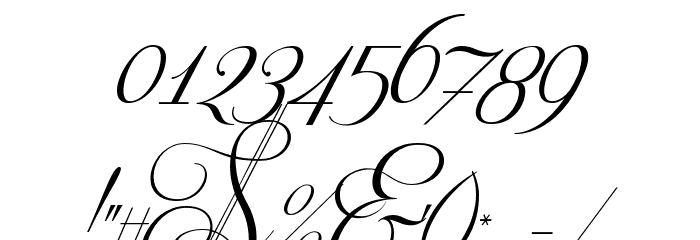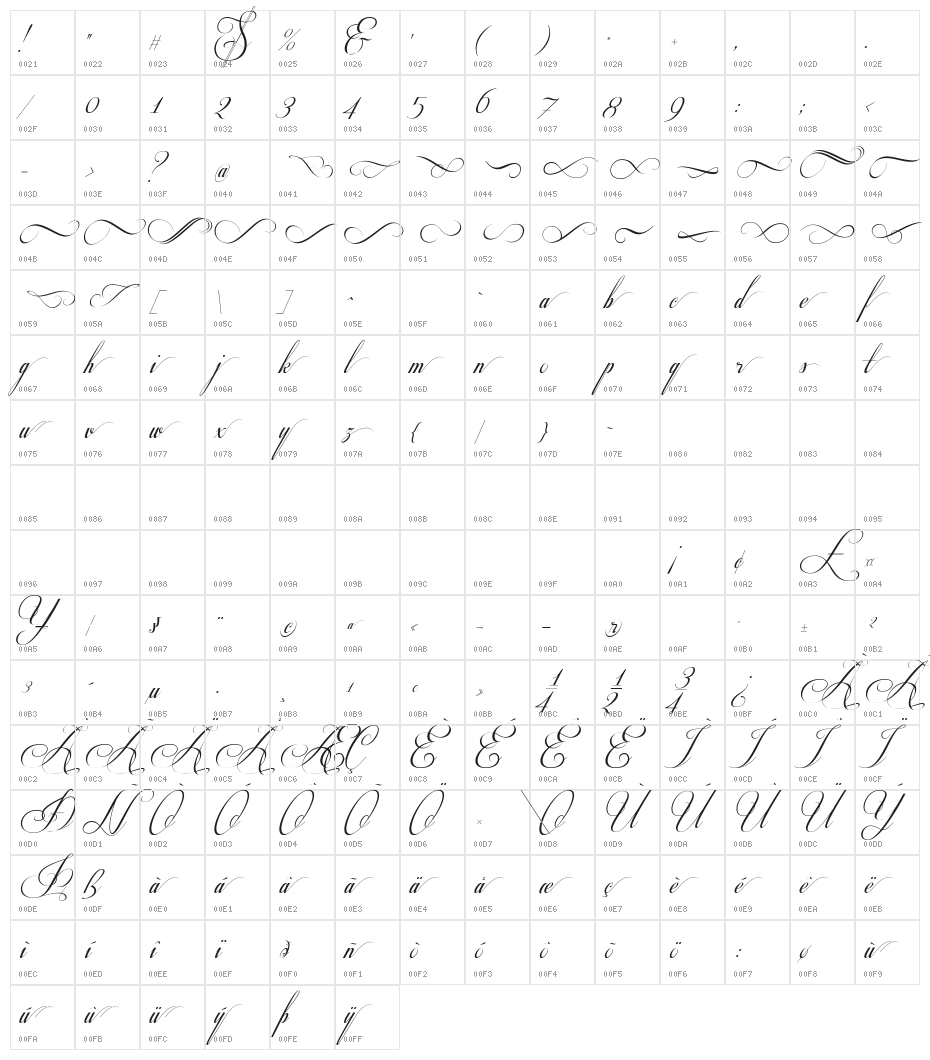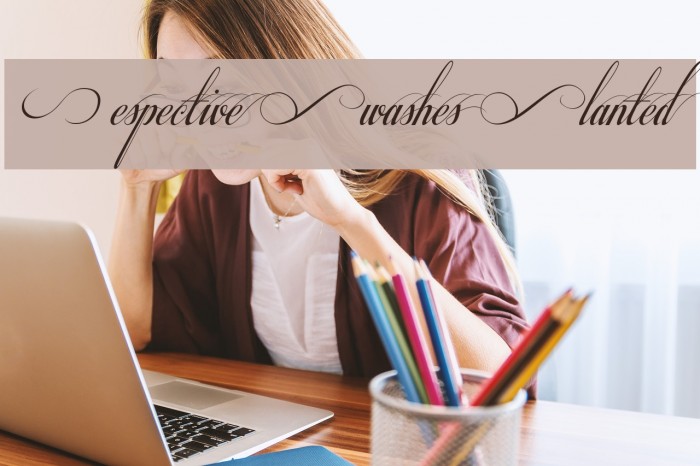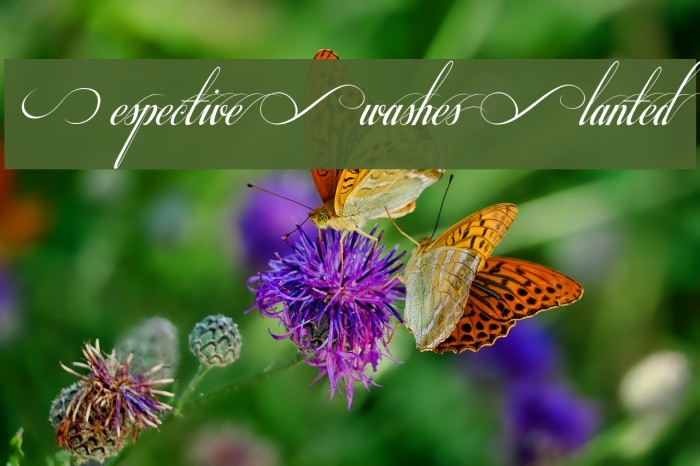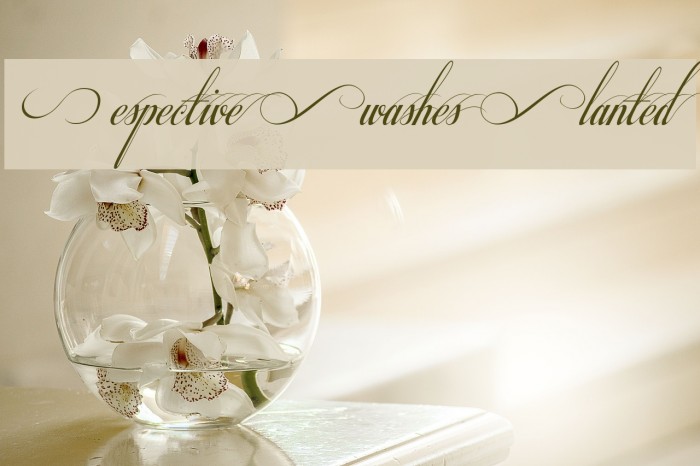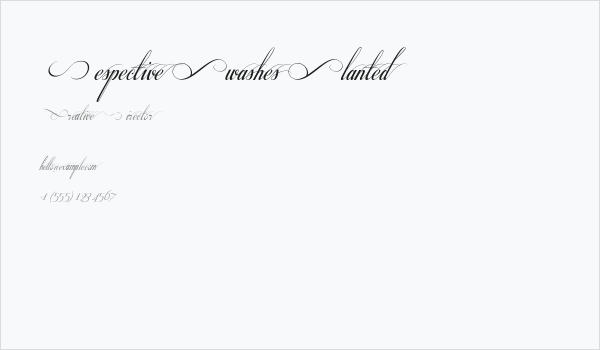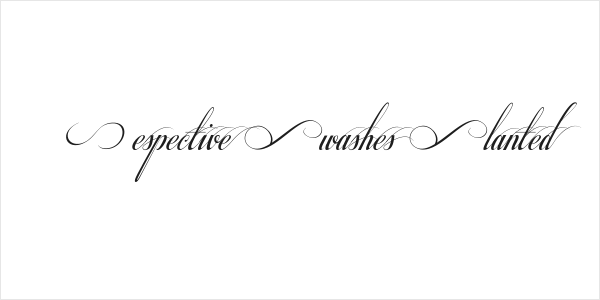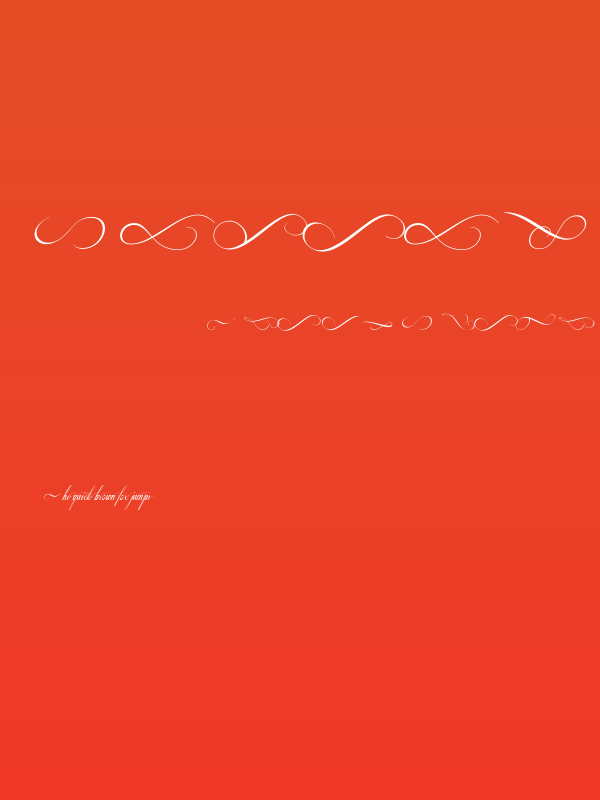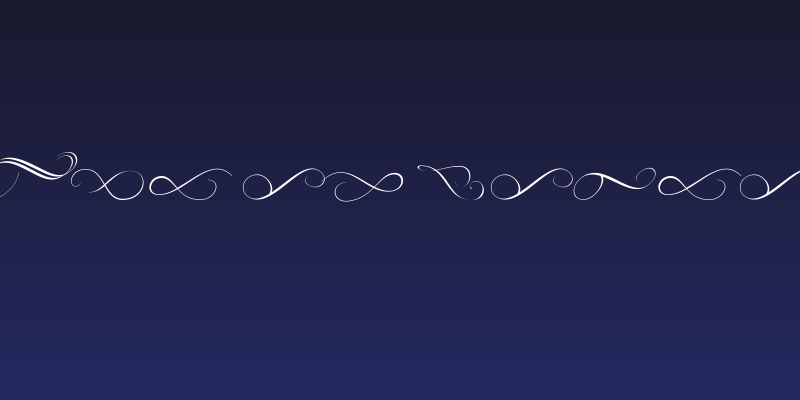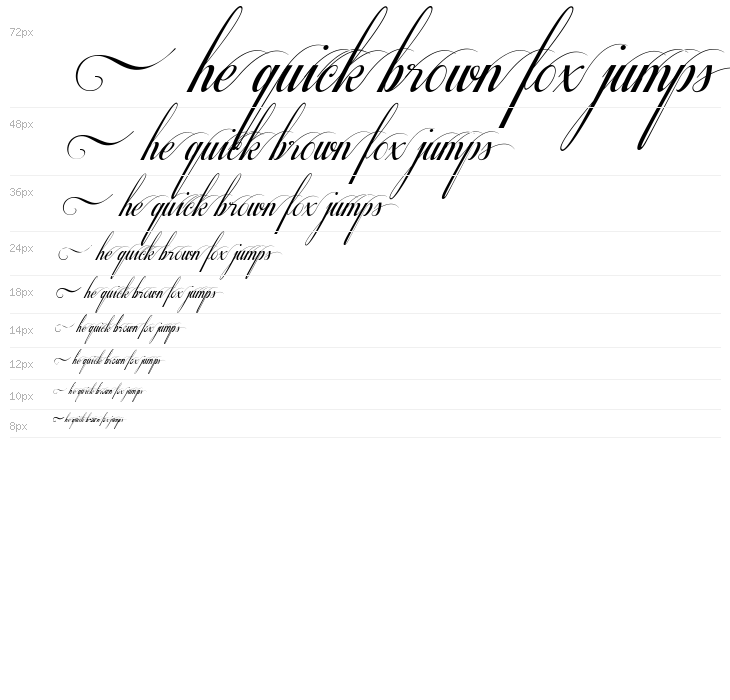
Respective Swashes Slanted Font
This font exhibits an elegant and sophisticated style with its flowing, cursive script. The characters are adorned with intricate swashes and flourishes, giving it a highly decorative appearance. The slanted orientation adds a dynamic and graceful touch, making it ideal for formal invitations, branding, and artistic projects. The letters are well-balanced, with a consistent stroke width that maintains readability while showcasing the elaborate design. The numerals and special characters are equally ornate, ensuring a cohesive look across all text elements.
| Proposed Projects | Ideal for wedding invitations, luxury branding, artistic designs, and decorative headings. |